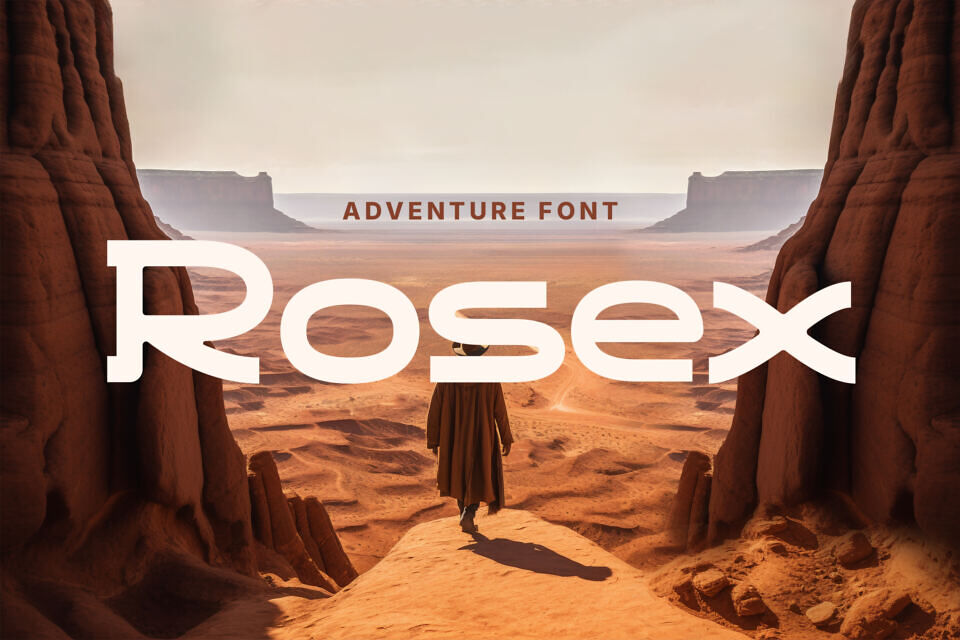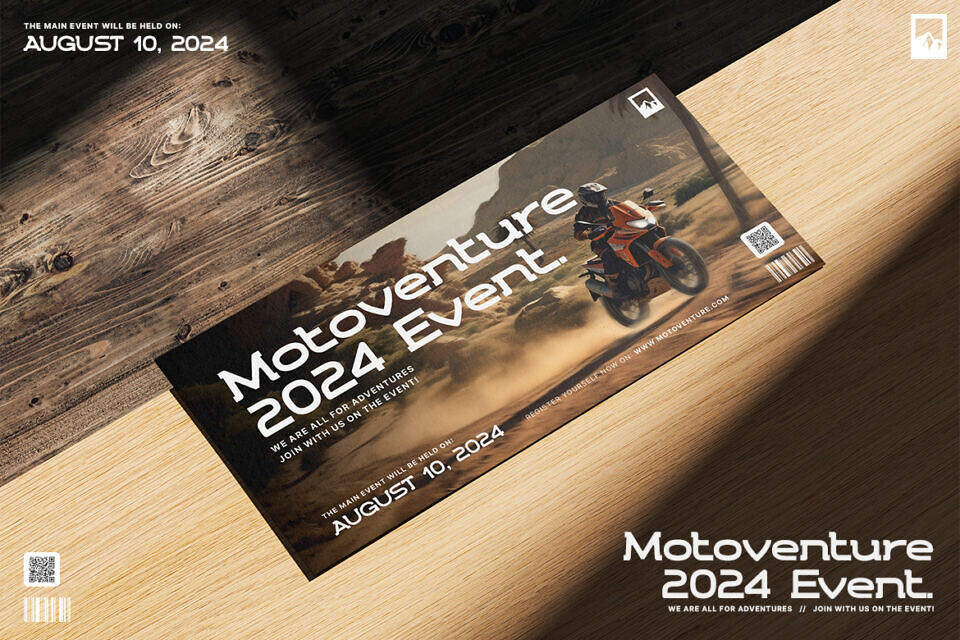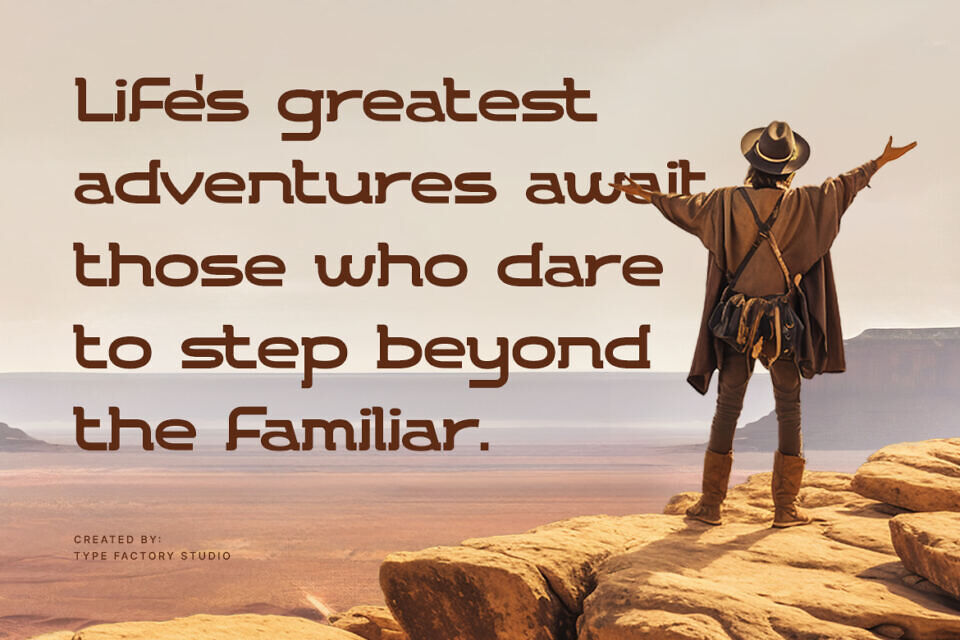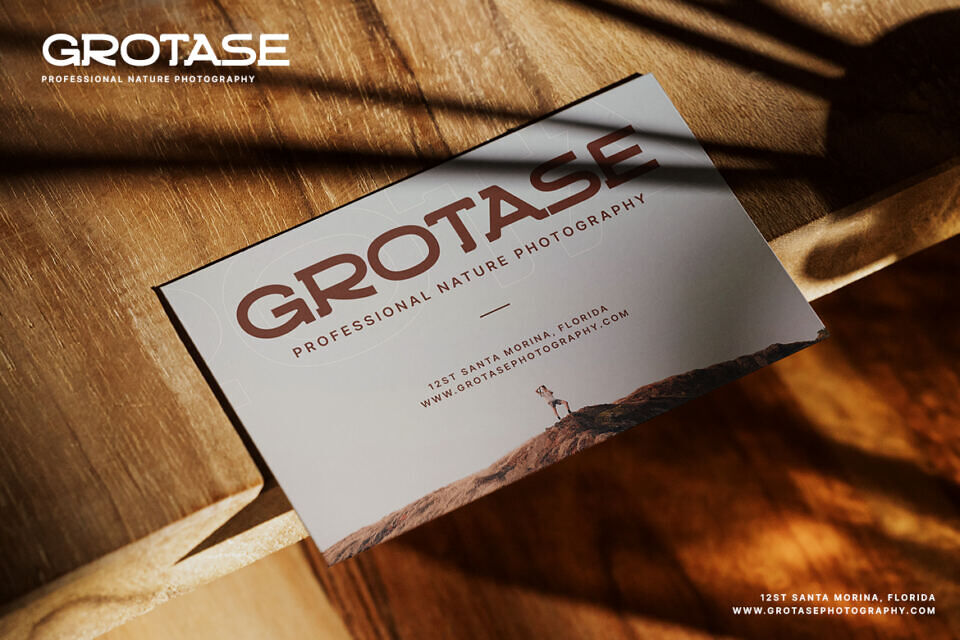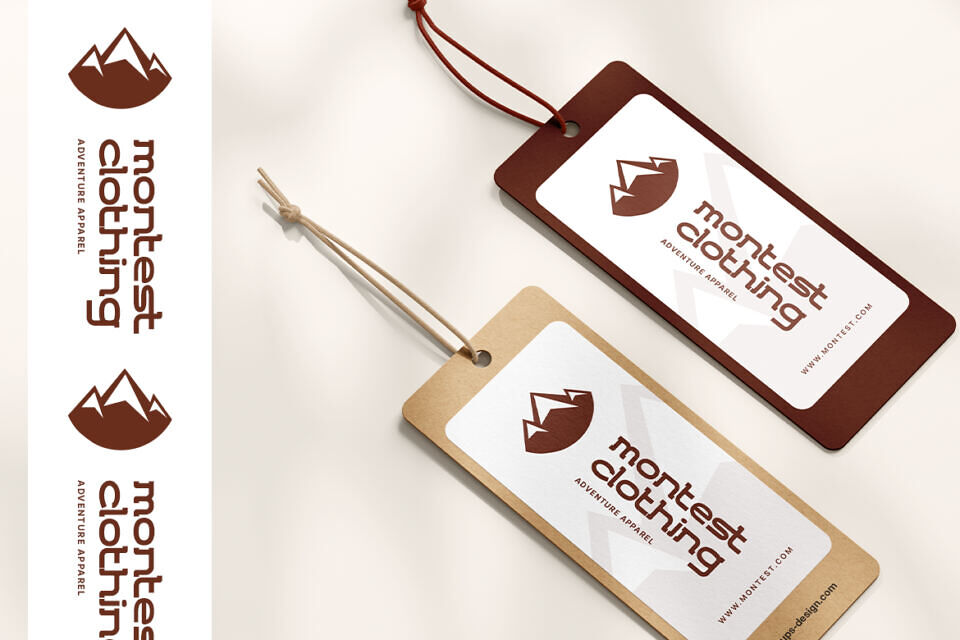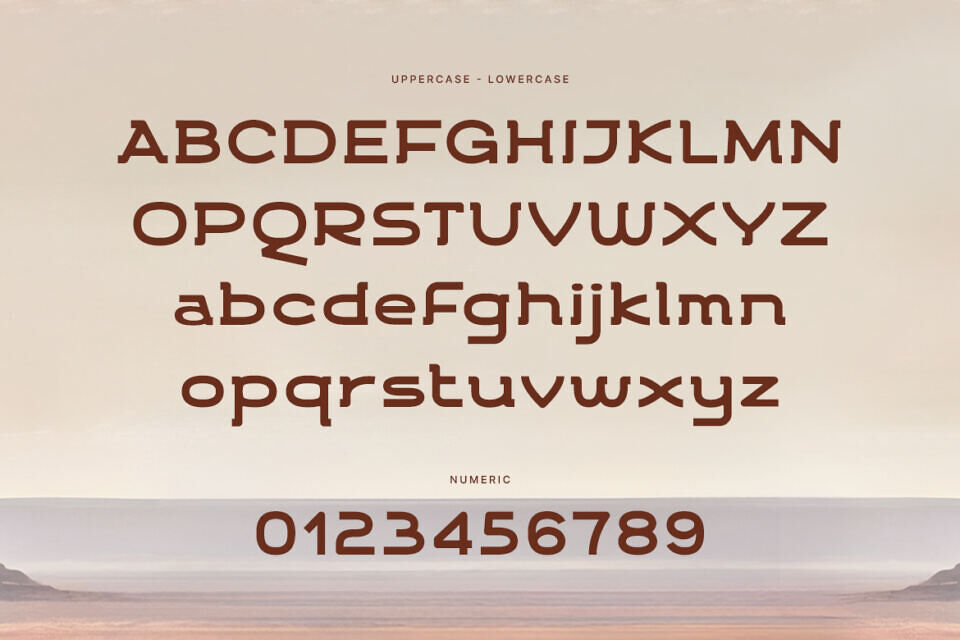
Rosex Font
Rosex is a bold, modern, and distinctive sans-serif display typeface with a sleek, adventurous spirit. Drawing inspiration from the vast, rugged landscapes of science fiction and classic Westerns, its unique aesthetic combines strong geometric forms with subtly rounded edges and powerful, unexpected cuts.
Perfect for movie titles, branding, and video game logos, Rosex adds a commanding, futuristic, and adventurous touch to your projects. Its distinctive character and versatility make it ideal for headlines in both print and digital formats. Let Rosex transform your designs with its memorable and dynamic appeal, making every project feel like a visual journey.